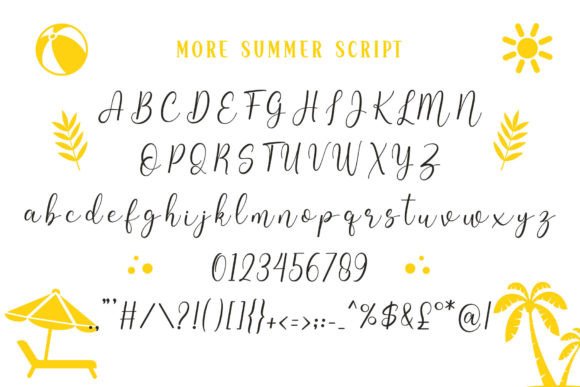
More Summer is a fun and playful font duo with a stylish script and serif display font. This typeface is fresh and lovely and is suitable for cute and attractive summer designs.
More Summer Duo Font